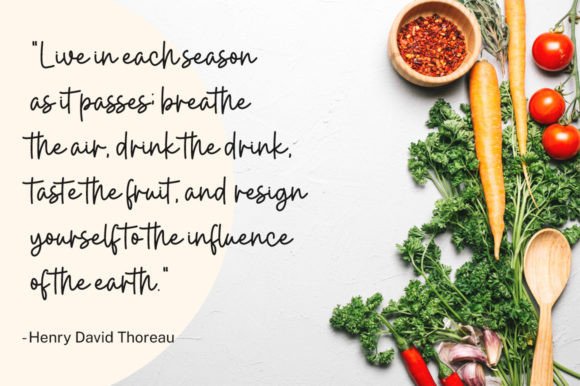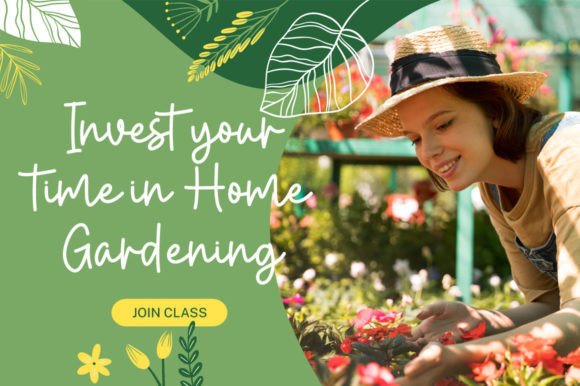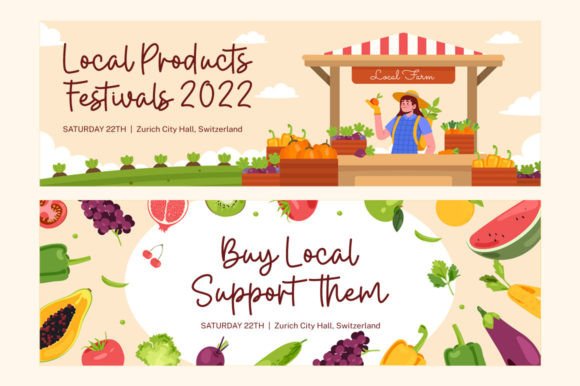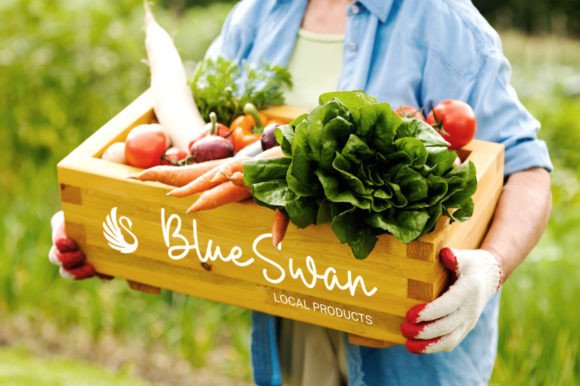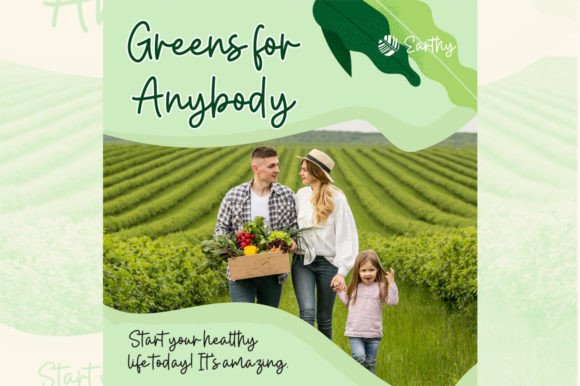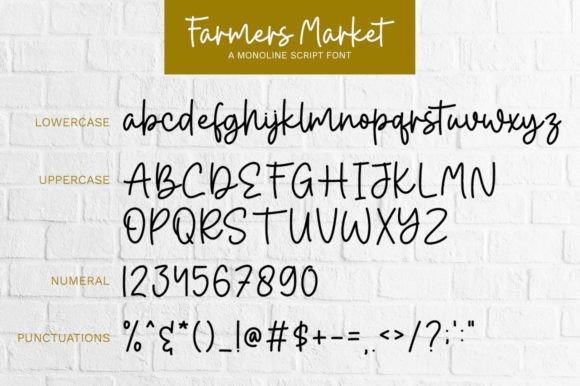
Introducing Farmer Market Font: The Perfect Addition to Your Design Arsenal
Are you a designer, crafter, or DIY enthusiast looking for a font that can elevate your project to the next level? Look no further than the Farmer Market Font, a delicate, elegant, and flowing monoline script font that’s sure to captivate your audience. In this article, we’ll dive into the world of Farmer Market Font, exploring its features, benefits, and uses, and why it’s a must-have for any creative looking to add a touch of sophistication to their designs.
What is Farmer Market Font?
Farmer Market Font is a beautiful, handcrafted monoline script font that’s inspired by the classic elegance of traditional market signs. Its delicate, flowing lines and well-balanced characters make it perfect for a wide range of design applications, from branding and packaging to invitations and crafts.
One of the standout features of Farmer Market Font is its unique monoline construction, which gives it a sleek, modern look that’s both stylish and sophisticated. The font’s flowing lines and curves create a sense of movement and fluidity, making it perfect for designs that require a touch of elegance and refinement.
Key Features of Farmer Market Font
So, what makes Farmer Market Font so special? Here are just a few of its key features:
- Delicate and elegant design: Farmer Market Font features a beautiful, handcrafted design that’s both delicate and elegant.
- Monoline construction: The font’s monoline construction gives it a sleek, modern look that’s perfect for designs that require a touch of sophistication.
- Well-balanced characters: Each character in the font is carefully crafted to ensure that they’re well-balanced and visually appealing.
- Wide pool of designs: Farmer Market Font matches a wide pool of designs, making it perfect for a variety of applications, from branding and packaging to invitations and crafts.
Benefits of Using Farmer Market Font
So, why should you choose Farmer Market Font for your next design project? Here are just a few of the benefits of using this beautiful font:
- Adds elegance and sophistication: Farmer Market Font adds a touch of elegance and sophistication to any design, making it perfect for projects that require a high-end look.
- Versatile: The font’s versatility makes it perfect for a wide range of design applications, from branding and packaging to invitations and crafts.
- Easy to read: Despite its delicate design, Farmer Market Font is easy to read, even at small sizes.
- Unique and eye-catching: The font’s unique monoline construction and flowing lines make it stand out from more traditional fonts, adding a touch of personality to your designs.
Uses for Farmer Market Font
So, what can you use Farmer Market Font for? The possibilities are endless, but here are a few ideas to get you started:
- Branding and packaging: Use Farmer Market Font to add a touch of elegance and sophistication to your brand’s packaging and marketing materials.
- Invitations and events: The font’s flowing lines and delicate design make it perfect for invitations, weddings, and other special events.
- Crafts and DIY projects: Farmer Market Font is a great addition to any craft or DIY project, from scrapbooking to woodworking.
- Signage and displays: Use the font to create eye-catching signage and displays that are sure to grab attention.
In conclusion, Farmer Market Font is a beautiful, elegant, and versatile monoline script font that’s perfect for designers, crafters, and DIY enthusiasts looking to add a touch of sophistication to their projects. Its delicate design, well-balanced characters, and flowing lines make it a great addition to any design arsenal. Whether you’re working on a branding project, creating invitations, or crafting a DIY project, Farmer Market Font is sure to impress.